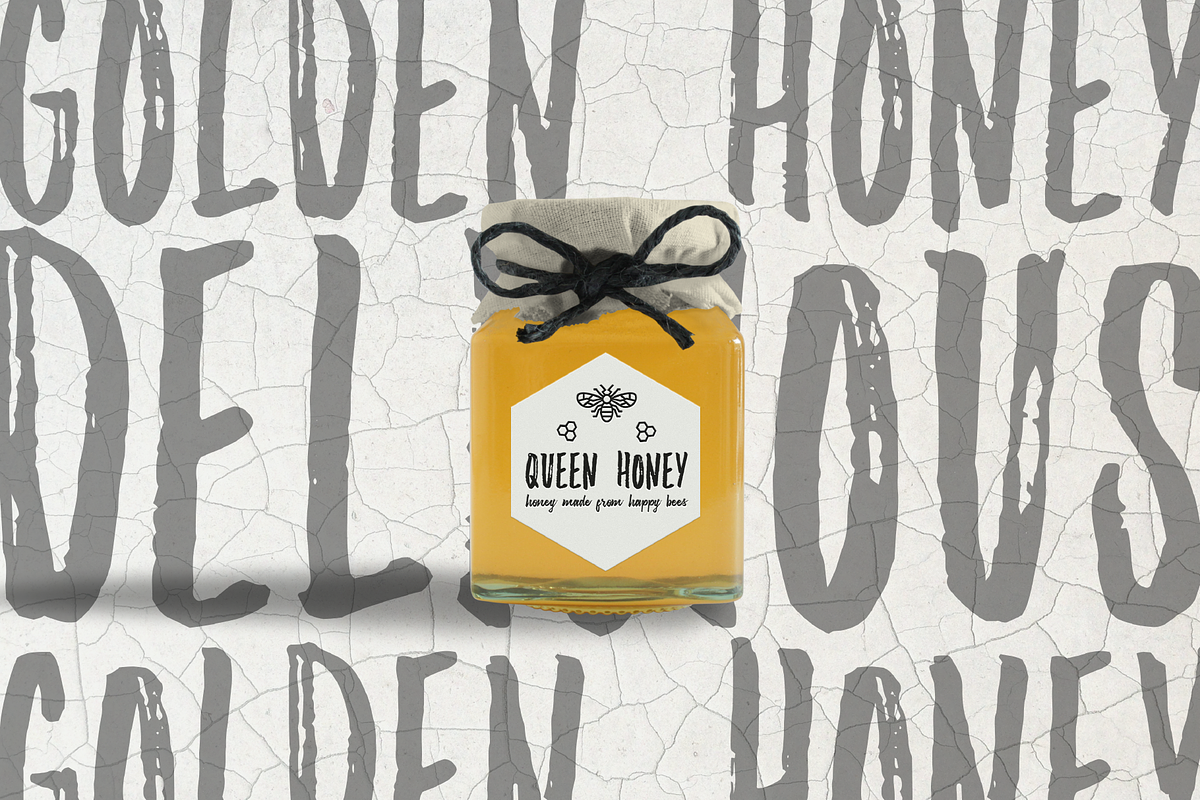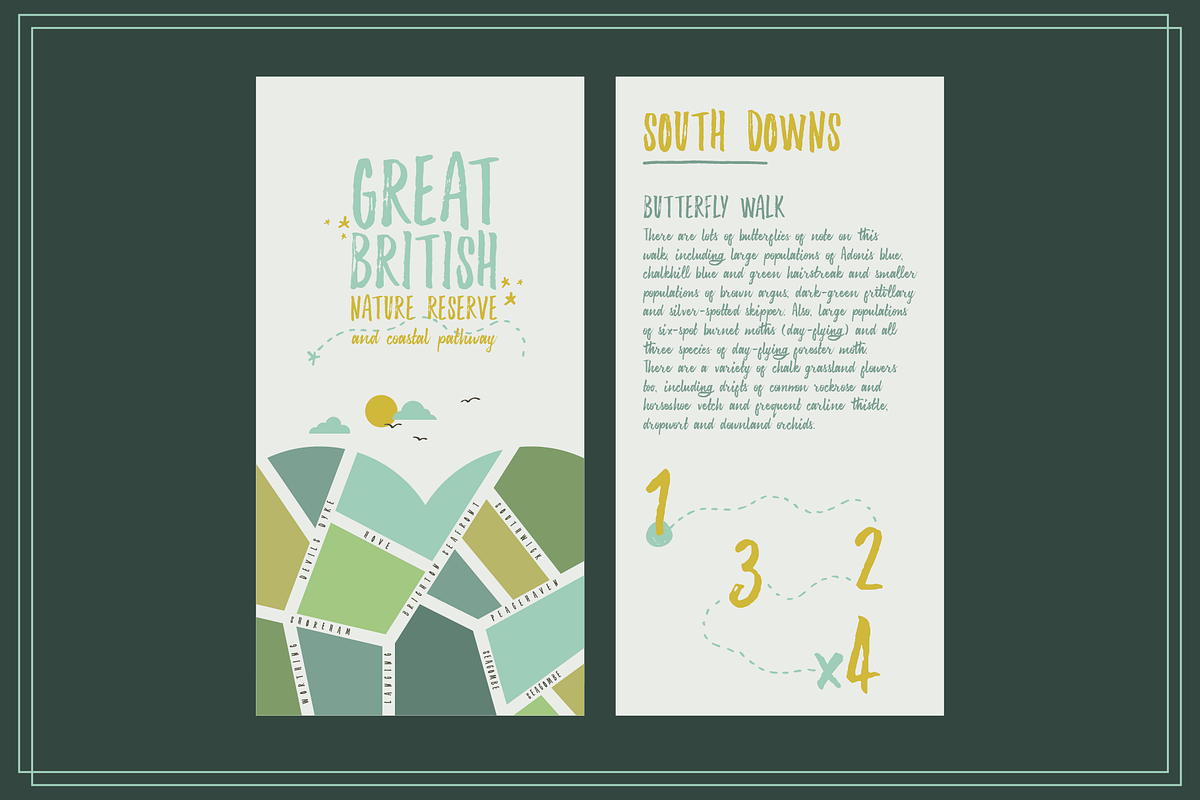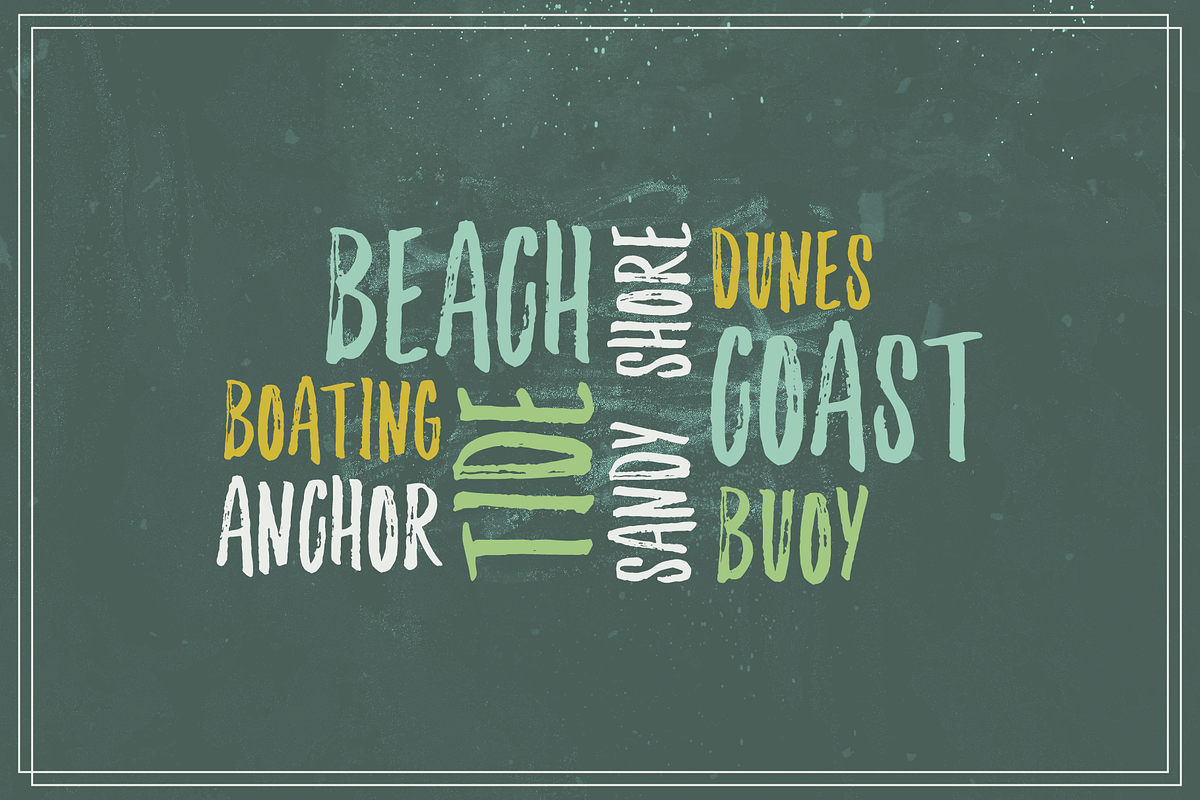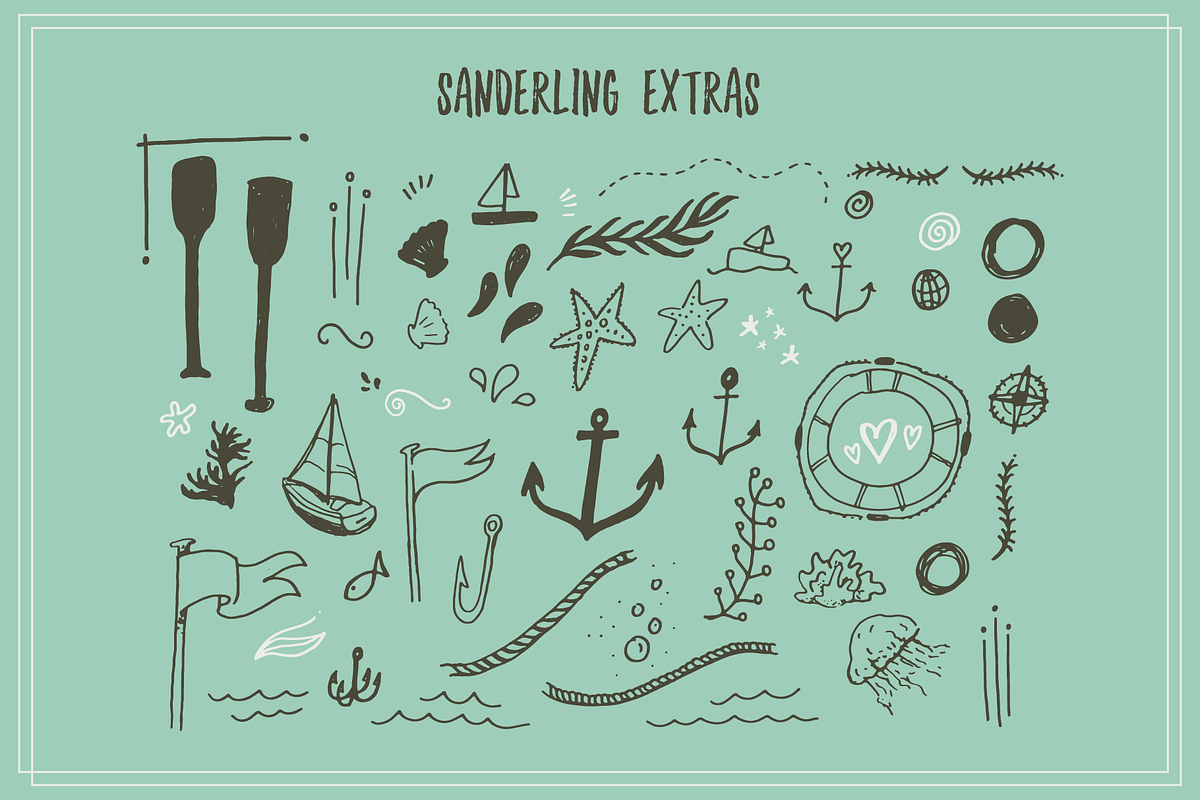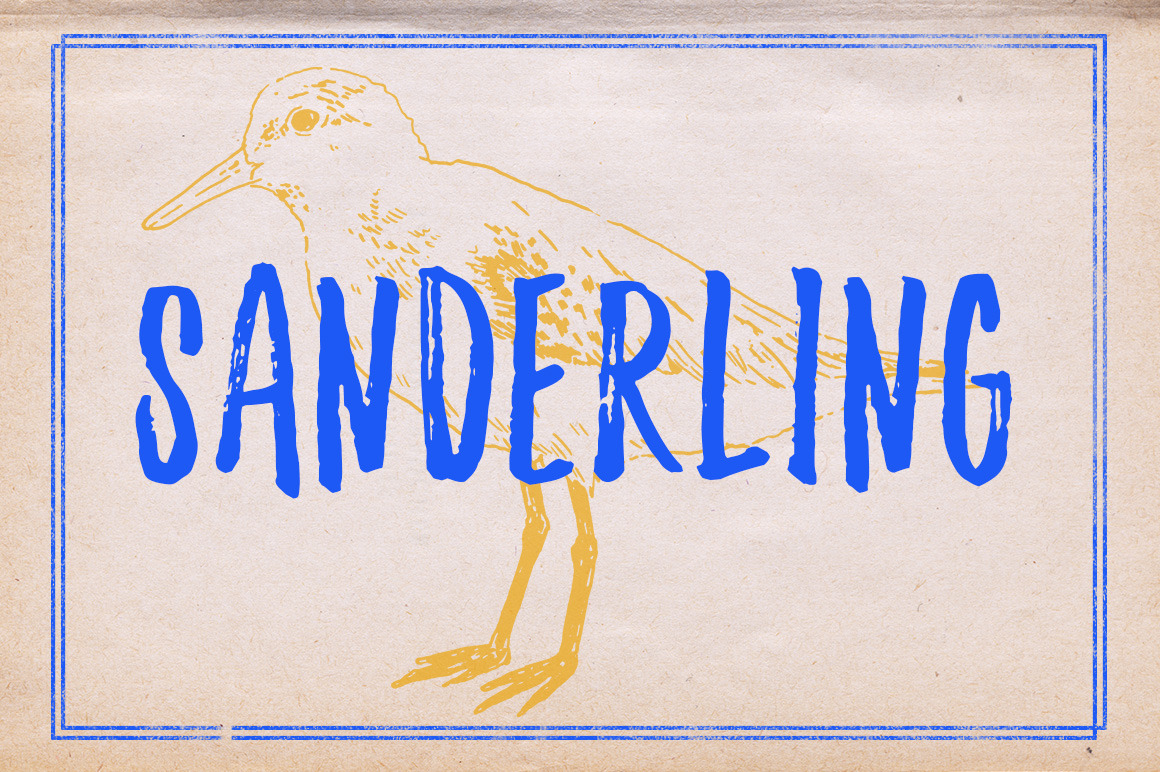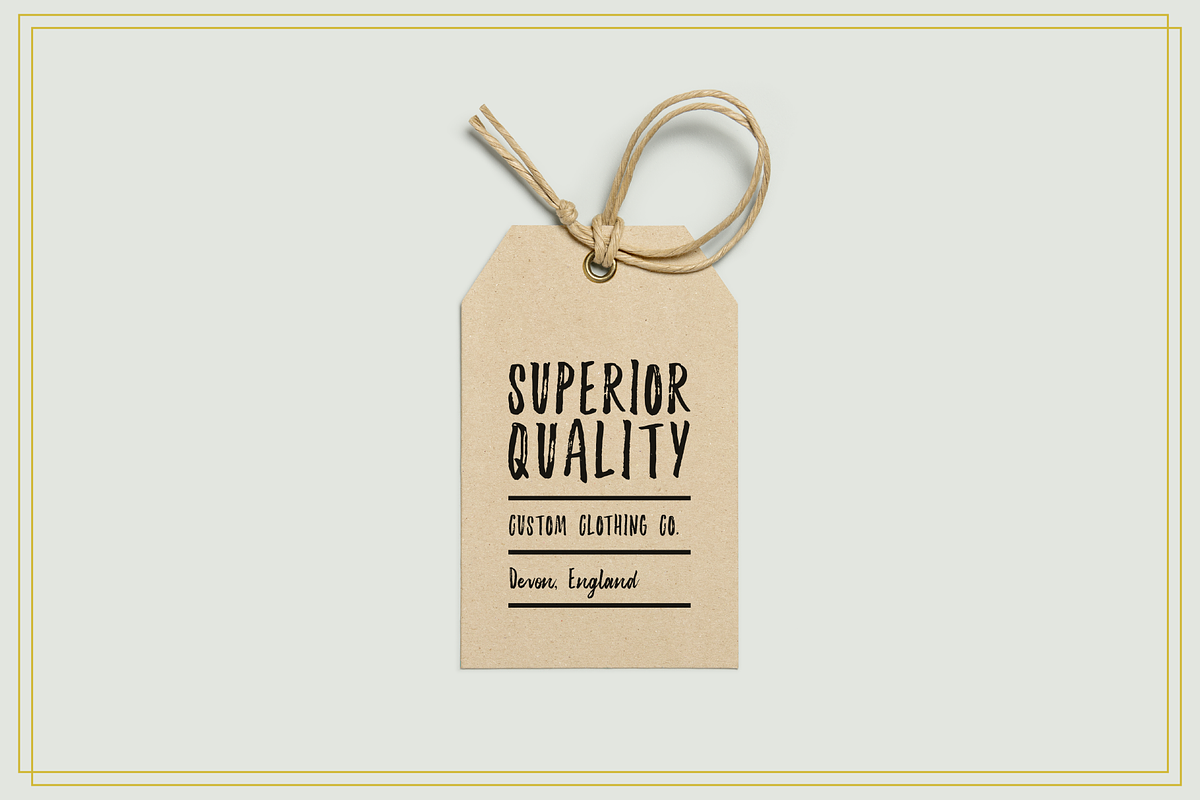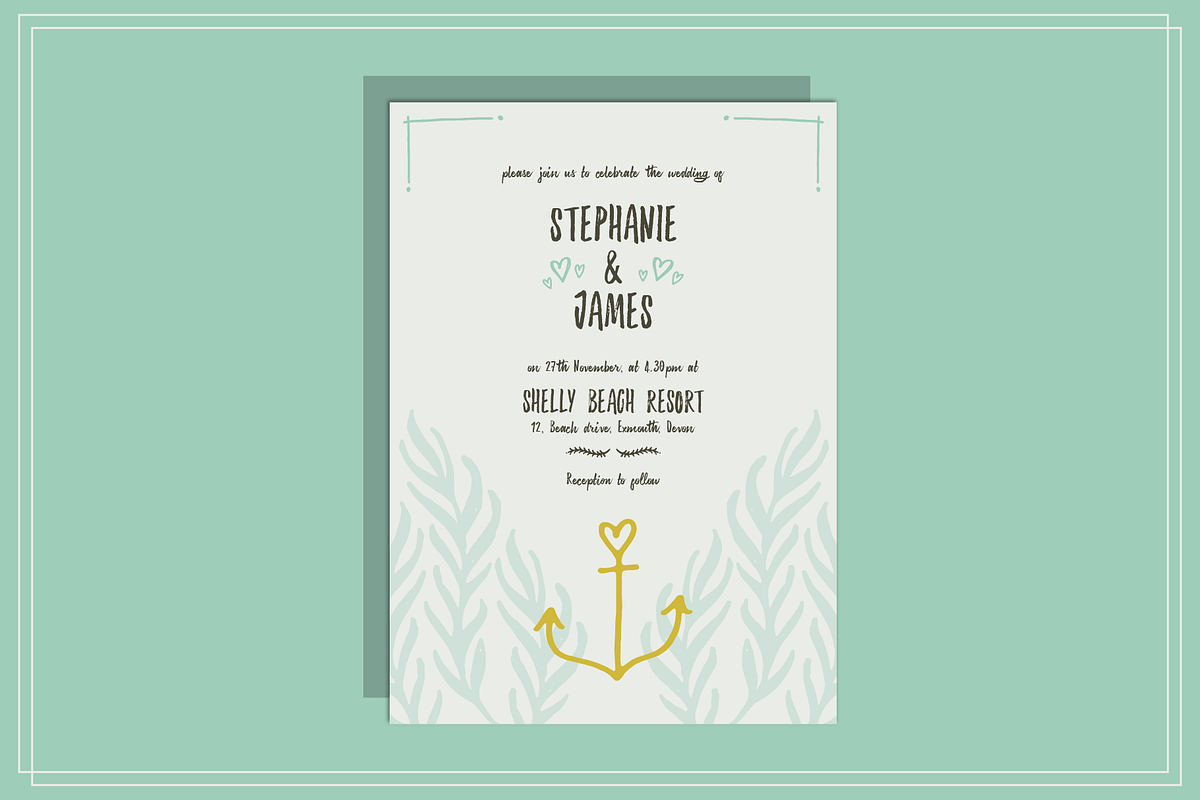
Sanderling Textured Font
SANDERLING a handmade, textured font & illustration pallet
This authentic hand sketched font includes:
A Script style font with ligatures and alternates, in a unique textured rustic style.
Over 50 hand drawn illustrations, to accompany this amazing font!
Hand drawn Sanderling bird illustration.